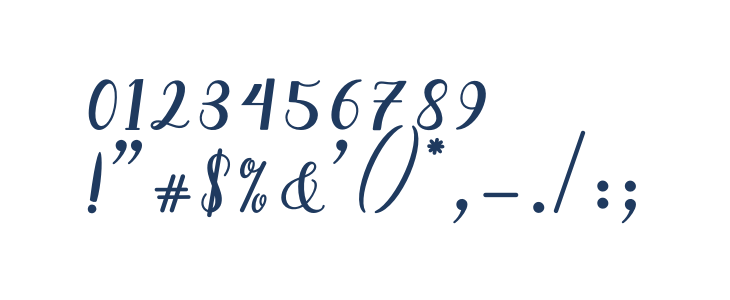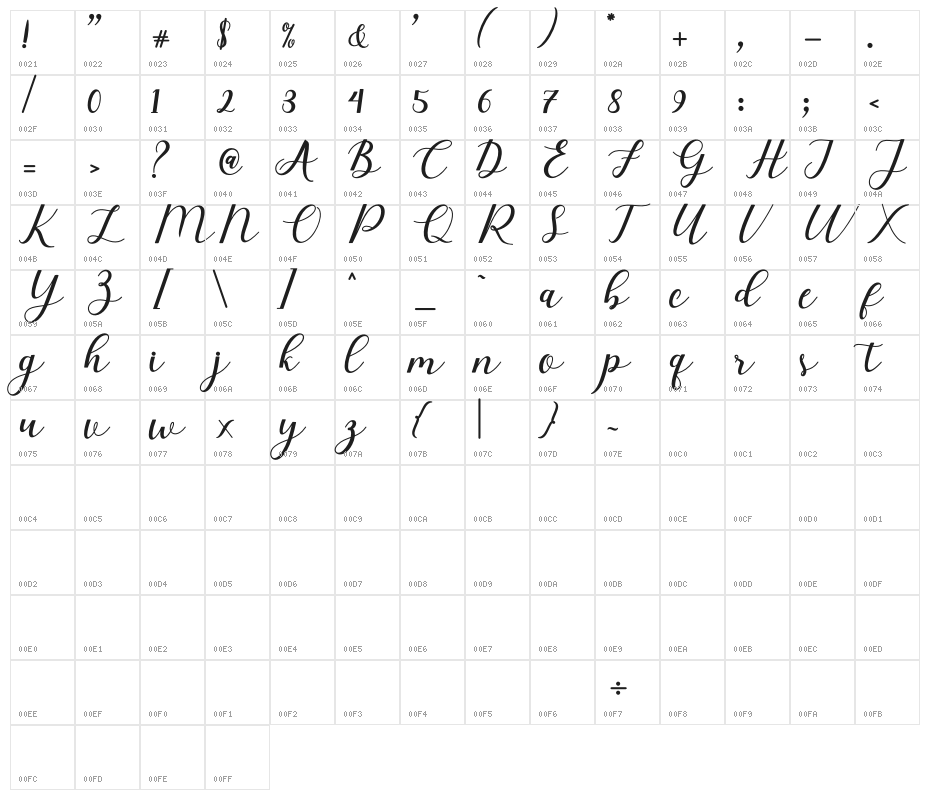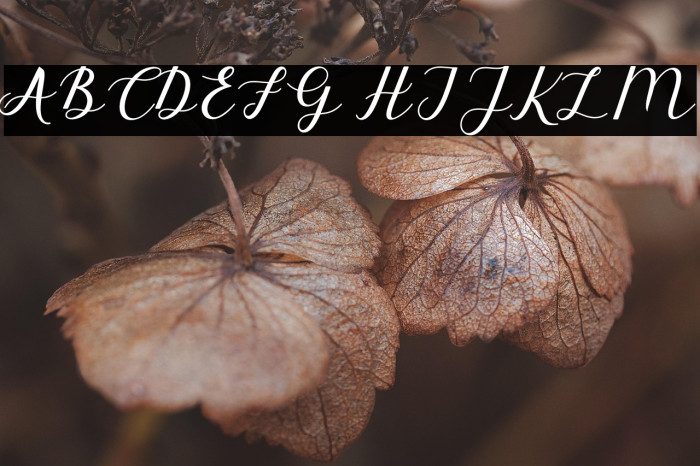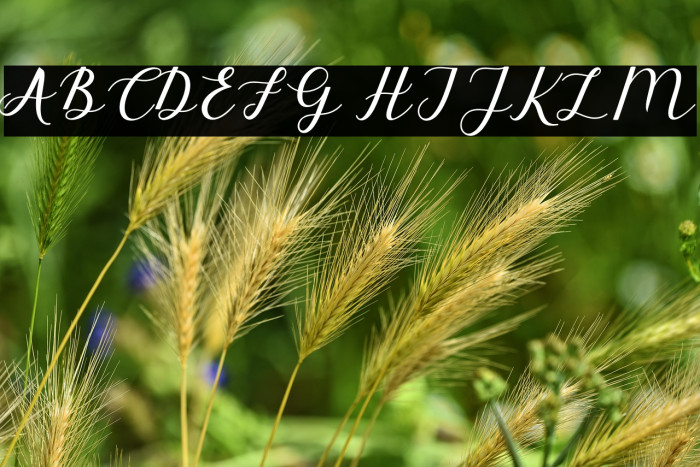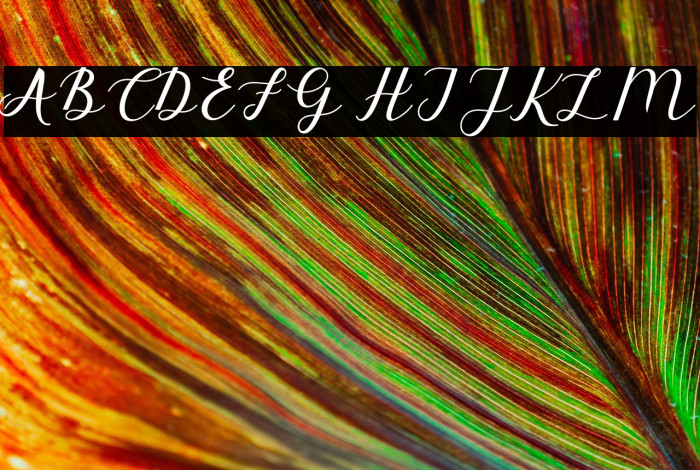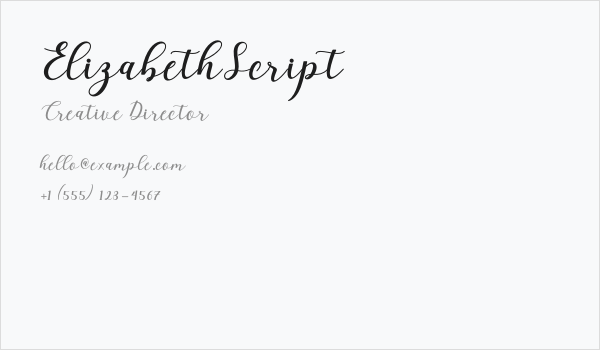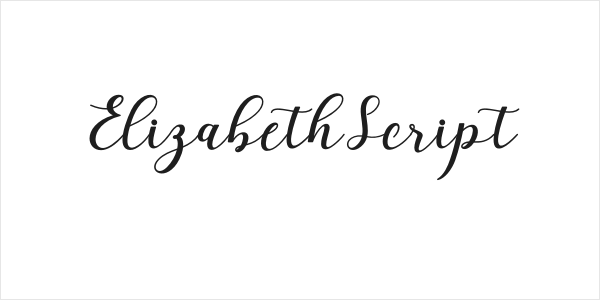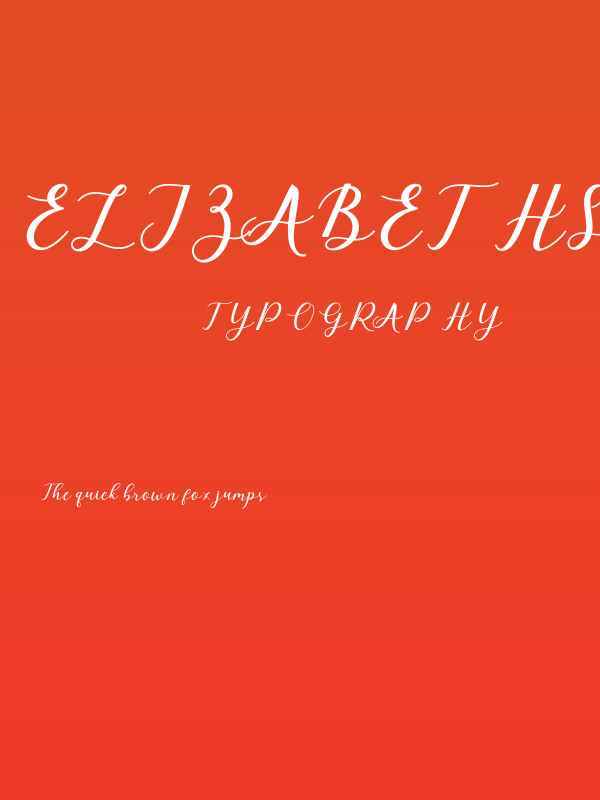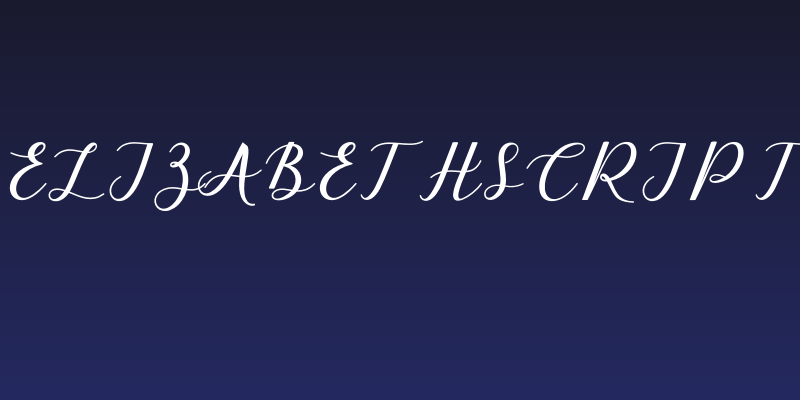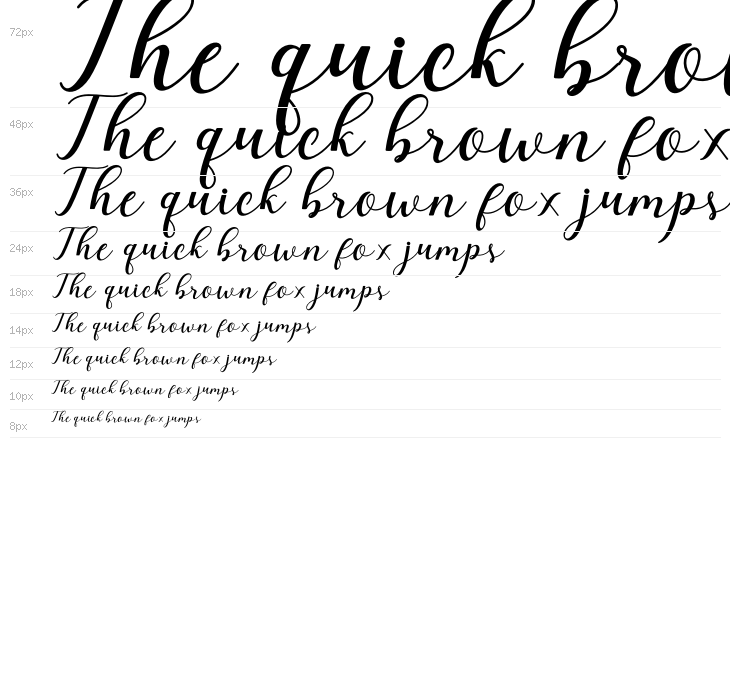
ElizabethScript Font
ElizabethScript Description
This elegant script font features flowing, cursive letters with a classic and sophisticated style. The uppercase letters exhibit graceful loops and swashes, while the lowercase letters maintain a consistent fluidity, enhancing readability. The numbers are stylishly curved, complementing the overall script aesthetic. Special characters are thoughtfully designed to match the font's ornate style, making it suitable for decorative purposes. The font's smooth curves and balanced proportions create a harmonious and visually appealing appearance, ideal for projects that require a touch of elegance and refinement.
| Proposed Projects | Wedding invitations, greeting cards, branding, and elegant packaging designs. |